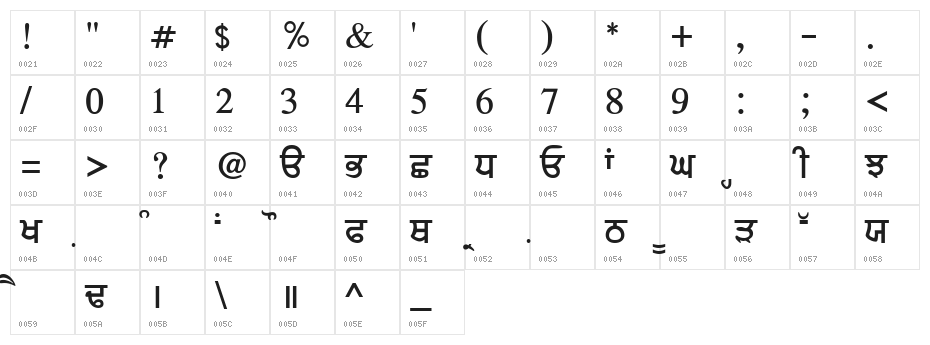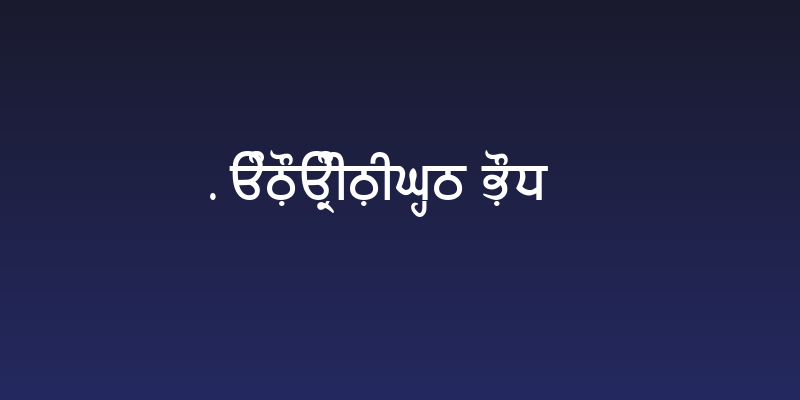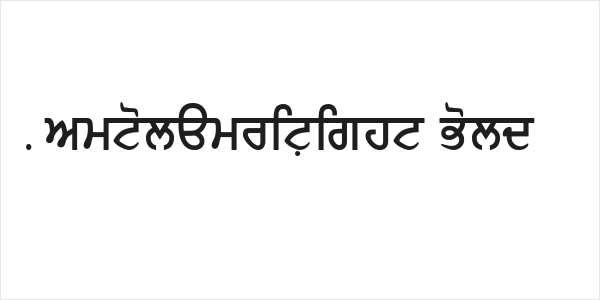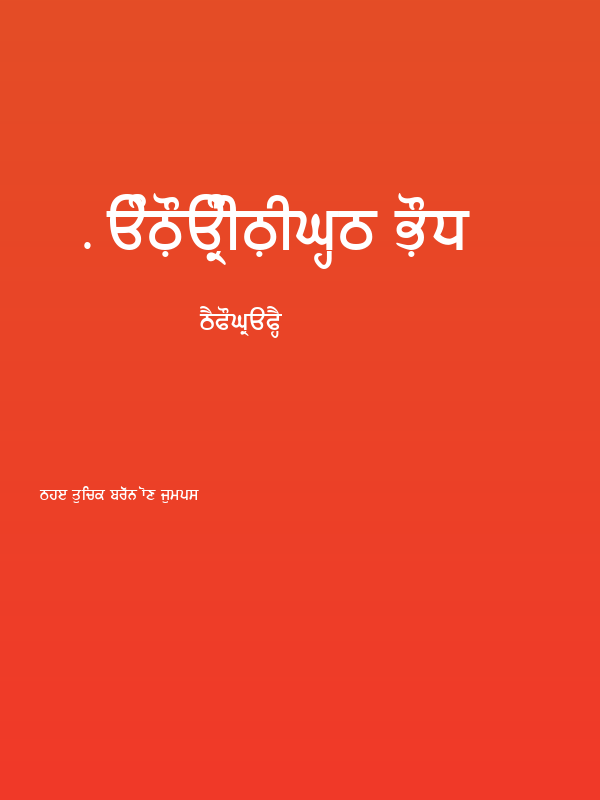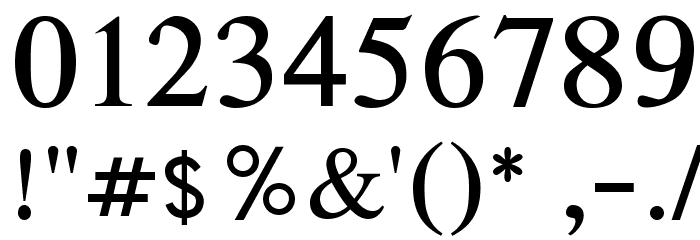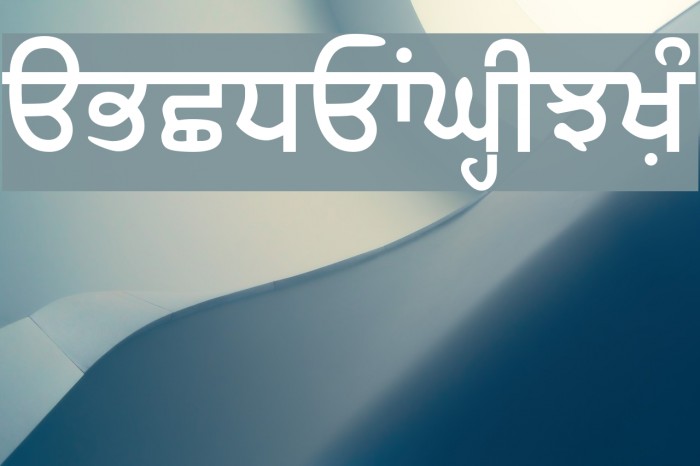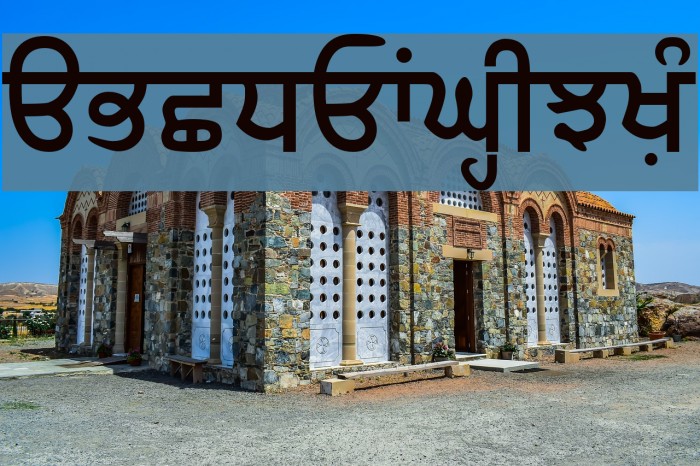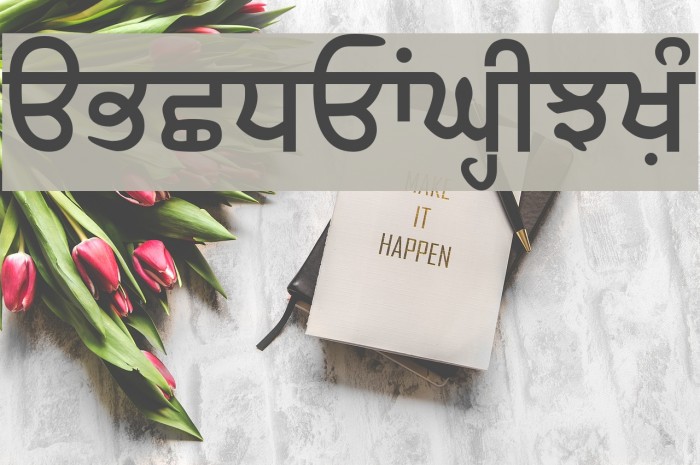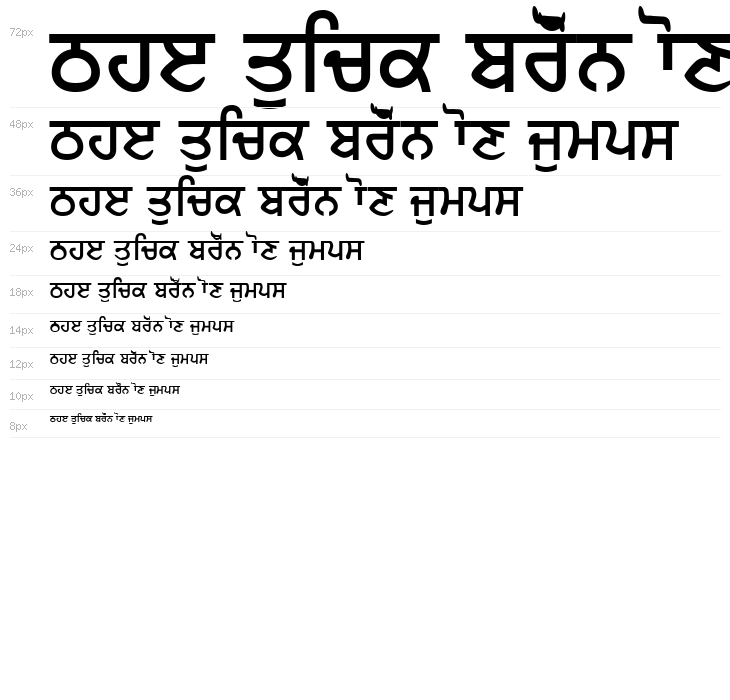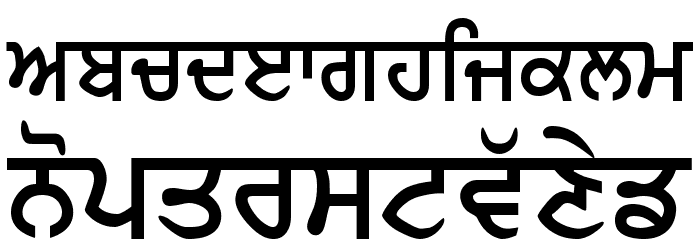
SamtolAmritLight Bold Font
SamtolAmritLight Bold Description
This font features a bold and striking design with a strong presence. The characters are well-defined and exhibit a high level of clarity, making them easily readable. The strokes are consistent in thickness, providing a uniform appearance across all characters. The numerals are distinct and align well with the overall style, ensuring they stand out clearly. Special characters are included, maintaining the same boldness and clarity as the letters and numbers. This font is versatile and can be used in various design contexts where a bold and impactful statement is needed.
| Proposed Projects | This font is perfect for headlines, posters, branding materials, and any project requiring a strong visual impact. |